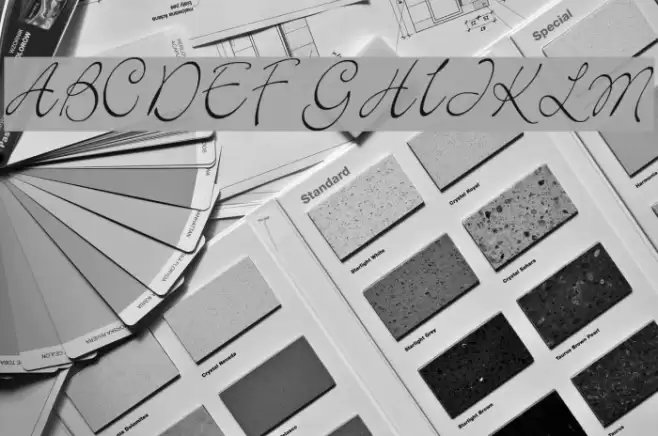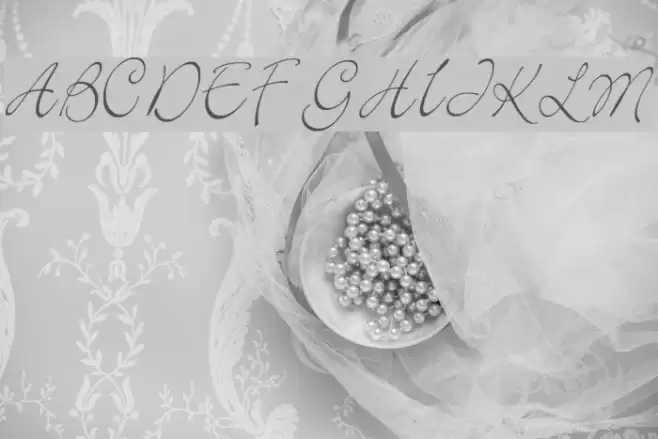
Elegant Font
Elegant Description
This font exudes elegance and sophistication with its flowing, cursive style. The characters are intricately designed, featuring smooth curves and delicate strokes that create a sense of fluidity and grace. The uppercase letters are particularly ornate, with sweeping lines that give them a dramatic flair. The lowercase letters maintain a consistent style, complementing the uppercase with their own subtle flourishes. The numerals are clear and stylish, fitting seamlessly with the overall aesthetic. Special characters are thoughtfully crafted, adding to the font's versatility. This font is ideal for projects that require a touch of elegance and refinement.
A sophisticated cursive font with elegant, flowing characters from Uncategorized fonts.
- Proposed Projects: Wedding invitations, luxury branding, elegant stationery, and high-end product packaging.
- Overall Style: Elegant
- Use Case: Headlines, Invitations, Branding